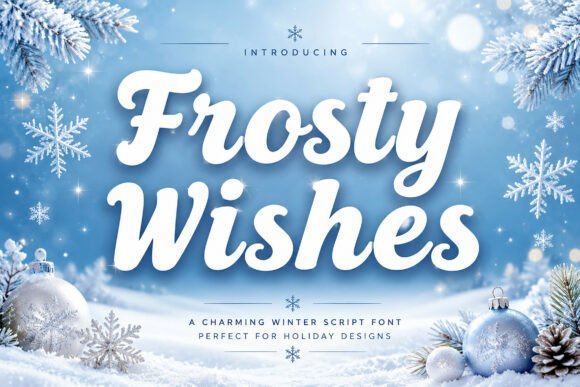
Unwrap the Magic of the Season with Frosty Wishes Font
There’s something special about curling up with a warm cup of hot cocoa, surrounded by twinkling lights and the soft glow of the Christmas tree. It’s the perfect moment to get creative, whether you’re crafting handmade cards for loved ones or designing festive social media graphics to share with friends. And what better way to capture the essence of the season than with a charming and festive font that embodies the spirit of winter?
Meet Frosty Wishes Font, a delightful Christmas script font that brings warmth and joy to your creative projects. With its smooth curves, playful swashes, and cozy handwritten style, this font is the perfect addition to any holiday design. Whether you’re a seasoned designer or a crafty enthusiast, Frosty Wishes Font is a valuable tool that will help you create stunning seasonal designs that stand out with a handcrafted holiday feel.
From Christmas cards to gift tags, winter quotes to festive branding, Frosty Wishes Font is the perfect choice for designers who want to add a touch of winter elegance to their projects.
Frosty Wishes Font Key Features
- Font Family: Frosty Wishes, a unique and elegant script font designed for winter-themed projects.
- Unique Characteristics: Features intricate and delicate flourishes, making it perfect for festive and holiday-themed projects.
- Number of Glyphs: 1000+ glyphs, including uppercase and lowercase letters, numbers, and special characters, for comprehensive use.
- Font Weight: Available in Light, Regular, and Bold weights, allowing for flexibility in design and layout.
Frosty Wishes Font Review
Frosty Wishes Font is a charming, winter-themed font that’s sure to bring a touch of magic to your designs. Here’s what I think:
- Unique and playful design that’s perfect for winter-themed projects
- Comes in a range of weights and styles to suit different design needs
- Includes a variety of special characters and ornaments to add extra flair
- Looks great in both digital and print designs
- May be too whimsical for more serious or corporate designs
- Some characters may not render well in certain font sizes or resolutions
- Not ideal for long blocks of text, as it can be overwhelming to read
Overall, I think Frosty Wishes Font is a great choice for designers looking to add a touch of winter wonder to their projects. While it may have some limitations, its unique design and playful charm make it a great addition to any font library.
The Frosty Wishes Font is perfect for winter-themed designs, invitations, and greeting cards. To get the most out of it, use it in conjunction with winter-themed graphics and colors. You can also experiment with different font sizes and styles to create a unique look.
Some common use cases for the Frosty Wishes Font include:
- Winter-themed invitations and greeting cards
- Seasonal social media posts and graphics
- Winter-themed party decorations and signage